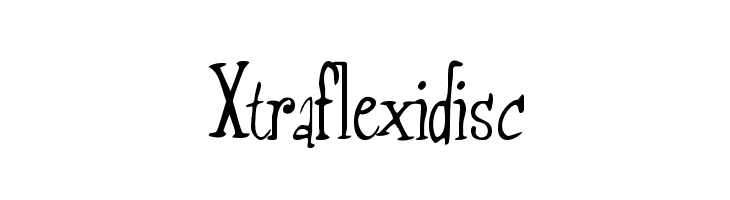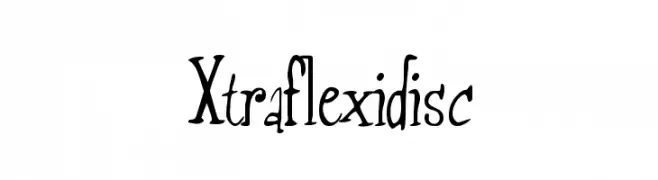
( Fonts by www.typodermicfonts.com - Ray Larabie )
A playful, hand-drawn font with a whimsical and dynamic style.
A playful, hand-drawn font with a whimsical and energetic style.